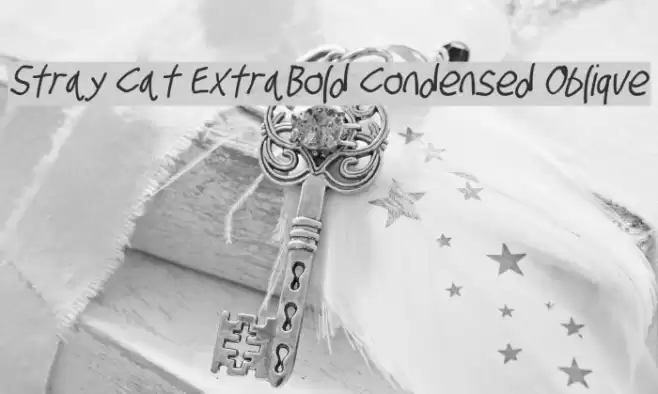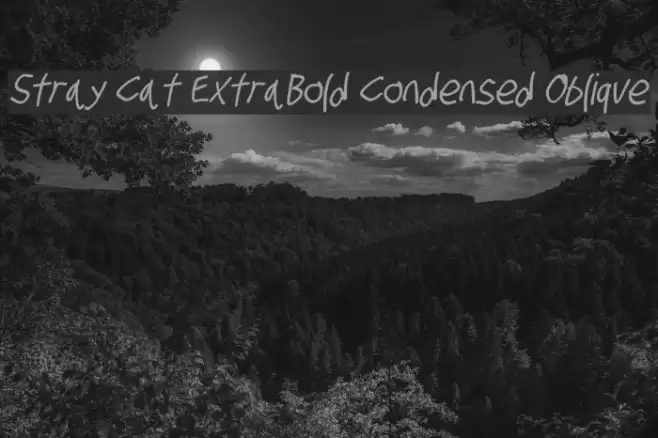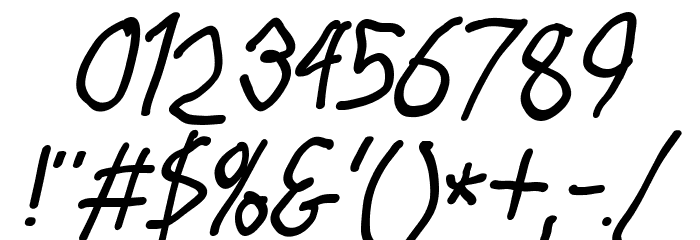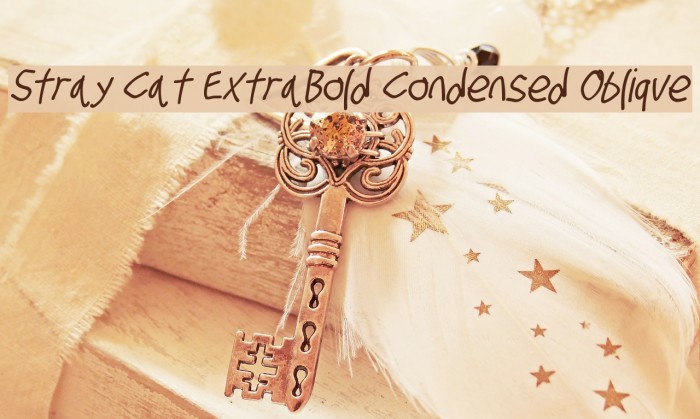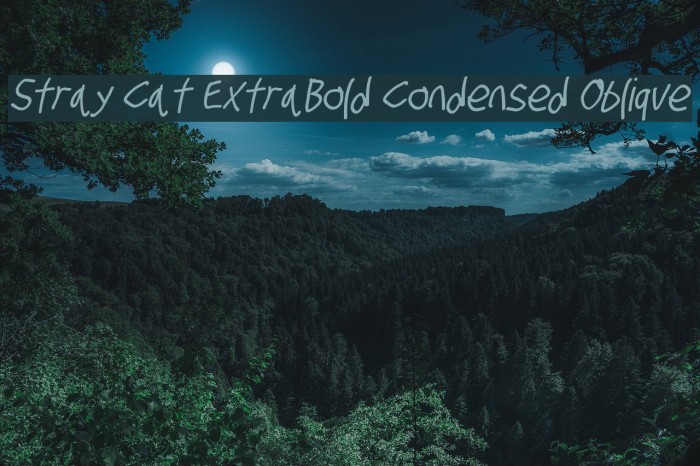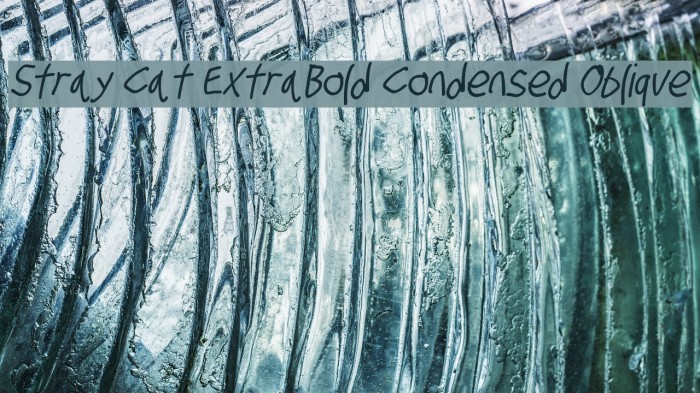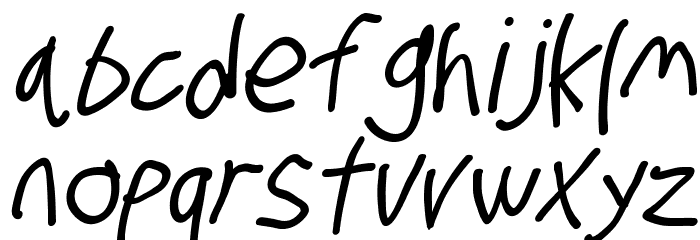
Stray Cat ExtraBold Condensed Oblique Font
Stray Cat ExtraBold Condensed Oblique Description
This font exudes a playful and casual handwritten style, characterized by its bold and condensed letterforms. The strokes are uneven, giving it a dynamic and energetic appearance. Each character leans slightly to the right, adding an oblique touch that enhances its informal and spontaneous feel. The uppercase and lowercase letters maintain a consistent flow, while the numerals and special characters integrate seamlessly into the overall design. This font's unique personality makes it stand out, offering a sense of individuality and creativity.
A bold, condensed, and oblique handwritten font with a playful and dynamic style from Uncategorized fonts.
- Proposed Projects: Ideal for creative projects such as greeting cards, posters, children's books, and branding materials that require a personal touch.
- Overall Style: Casual and Playful
- Use Case: Headlines, Logos, Informal Text